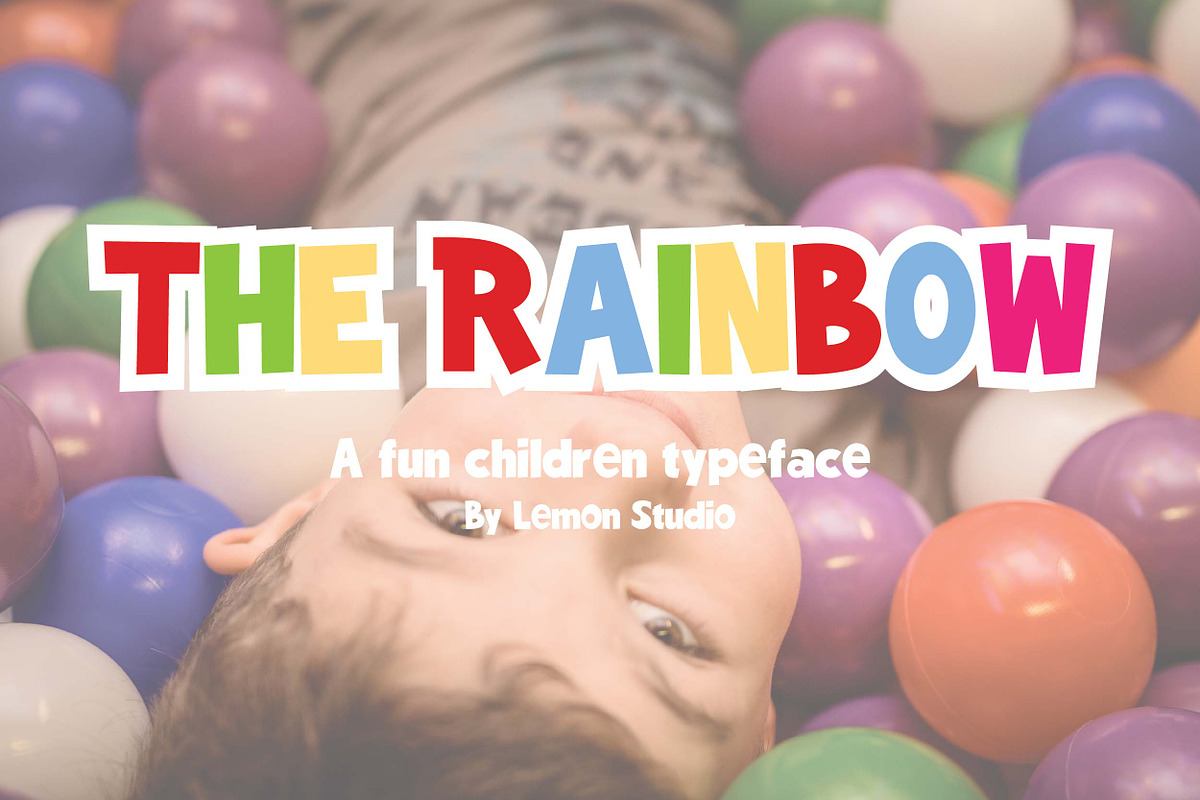
You must purchase this font for commercial use. However, you can download The Rainbow Font - Cute Display Font Free Download for testing purposes. The Rainbow Font is a playful, cute display font designed to bring a cheerful and vibrant feel to your designs. Perfect for creating fun branding, invitations, posters, social media graphics, and anything that needs a joyful, light-hearted touch.
With its rounded, whimsical letterforms and friendly vibe, The Rainbow Font is ideal for children’s designs, event posters, and any creative project that needs to stand out with a colorful personality. Whether you're designing for a kids' brand, a fun event, or adding a bright touch to your marketing materials, this font will bring a delightful, playful feel to your typography.